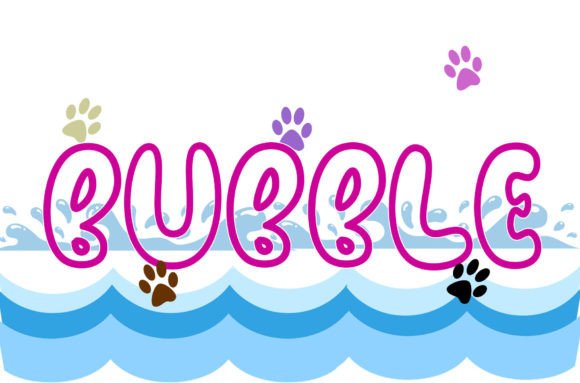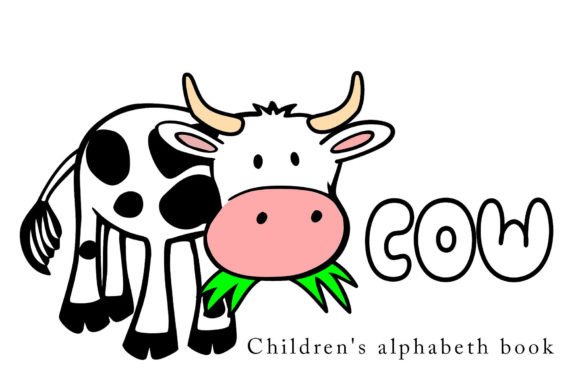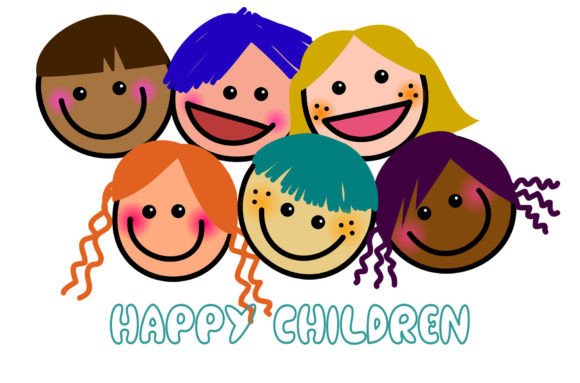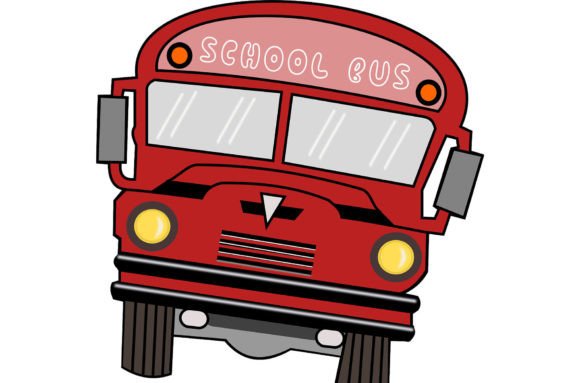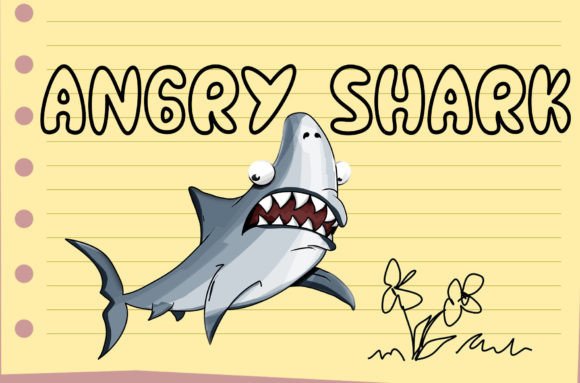
Bubble Font
About Bubble Font
“Bubble” is a playful and retro-style display font that exudes a sense of fun and nostalgia. This font is ideal for children’s themed designs, particularly when paired with bright and vibrant colors. It’s perfectly suited for various creative applications, including birthday invitations, book covers, and children’s themed banners.
The charm of “Bubble” lies in its ability to infuse a sense of joy and whimsy into your designs. This font’s playful and retro look adds a touch of authenticity and creativity to projects geared toward children and the young at heart.
Whether you’re crafting colorful and lively birthday invitations, designing eye-catching book covers for children’s literature, or creating banners that need to capture the essence of childhood, “Bubble” offers a versatile choice. Its fun and retro aesthetic resonate with viewers, making it a great choice for projects that aim to delight and entertain.
As you incorporate “Bubble” into your creative process, you’ll discover its remarkable ability to enhance your work, making it visually engaging and memorable. This font becomes a trusted tool for designers seeking to create designs that spark joy and nostalgia while leaving a lasting impression on their audience.
In summary, “Bubble” is a fun and retro-style display font that brings a sense of playfulness to children’s themed designs. Its versatility and ability to evoke joy make it a valuable asset for designers looking to infuse their work with a touch of whimsy. Let “Bubble” be your creative choice and witness how it adds fun and nostalgia to your projects, ensuring they resonate with a youthful and spirited audience.